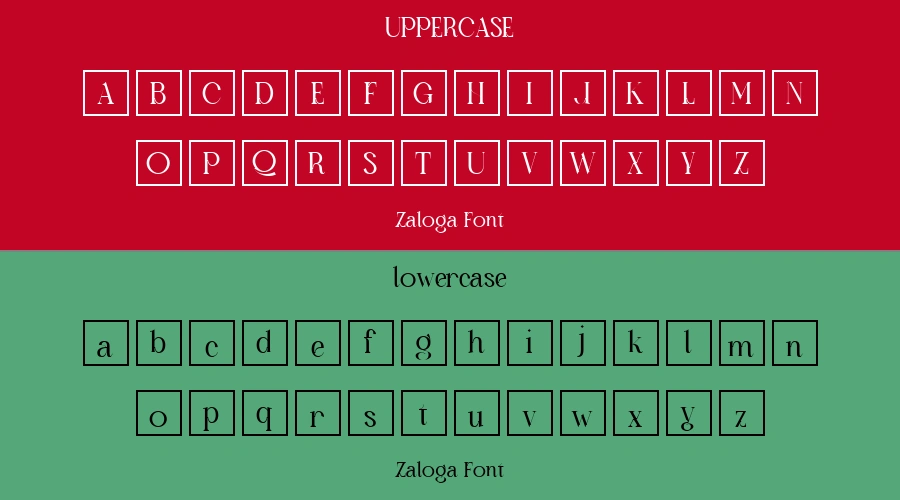
About Zaloga Font
Zaloga Font embodies typographic excellence through its masterful combination of refined proportions and traditional values. Created for financial statements, this typeface delivers exceptional craftsmanship and cultural relevance across all applications. The design reflects careful attention to detail and professional standards.
Advanced capabilities include distinctive fluid connections and versatile oldstyle figures, giving designers creative control. When used in brand logos, Zaloga Font exhibits remarkable cross-platform compatibility. The harmonious balance between x-height proportion and lifestyle connection sets this typeface apart.